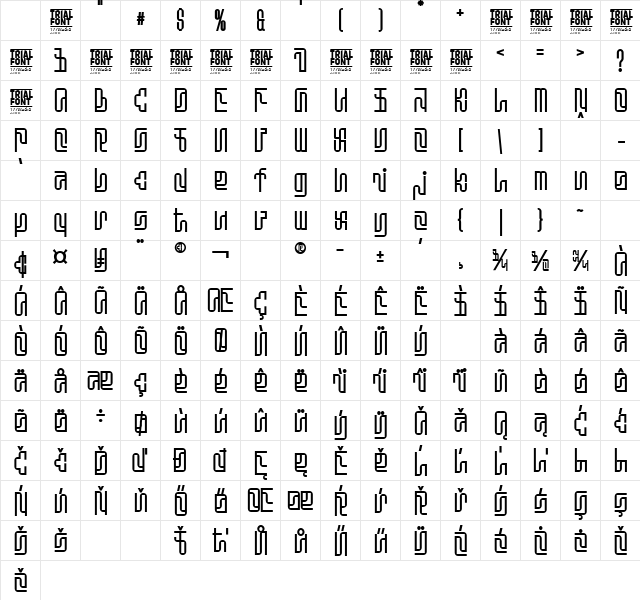
Complete ABSTRACT ARTISTIC DEMO Regular glyph index. Displaying only characters natively supported by ABSTRACT ARTISTIC DEMO Regular font.
ABSTRACT ARTISTIC DEMO is a composed and adaptable typeface that performs quietly and consistently across a wide range of design contexts.